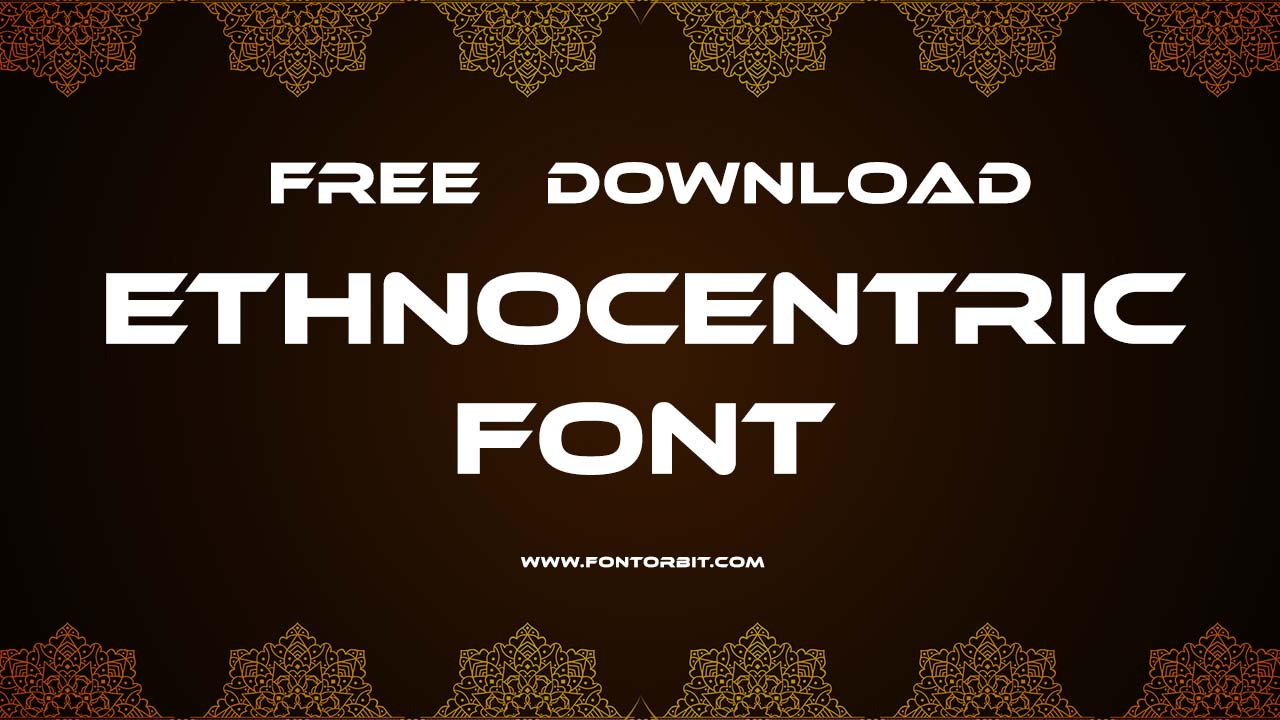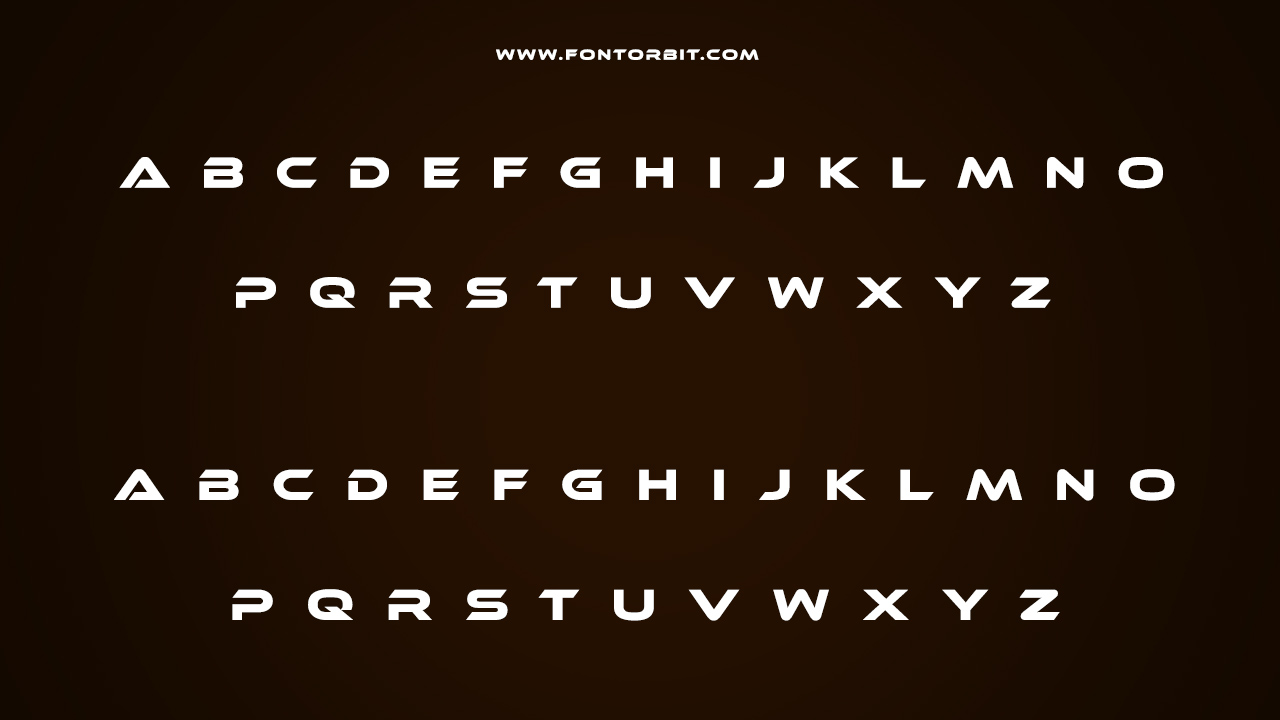
The Ethnocentric Font, designed by Ray Larabie and available from Typodermic, embodies a sleek and futuristic aesthetic. Inspired by modern technology and science fiction, this typeface features sharp diagonal cuts and dynamic pod forms that evoke a sense of rapid movement and technological advancement.
The Ethnocentric Font Family
- Ethnocentric Regular
- Ethnocentric Italic
- Ethnocentric UltraLight
- Ethnocentric UltraLight Italic
- Ethnocentric ExtraLight
- Ethnocentric ExtraLight Italic
- Ethnocentric Light
- Ethnocentric Light Italic
- Ethnocentric Bold
- Ethnocentric Bold Italic
- Tech and Sci-Fi Projects
- Logos:
- Magazines
- Web and UI Design
The Ethnocentric Font captures the essence of modern technology and sci-fi aesthetics with its dynamic and futuristic design. Its versatile weights and italics make it suitable for a variety of high-impact visual projects, from branding to digital interfaces.
1.What Is The Ethnocentric Font?
The Ethnocentric Font is a typeface designed by Ray Larabie, known for its futuristic and dynamic style, ideal for tech and sci-fi themed designs.
2.What Fonts Are Similar To Ethnocentric?
Similar fonts include Futurist, Techno Redux, and Cyberian Sans, which also offer a modern, tech-inspired look.
3.What Are The Key Features Of The Ethnocentric Font?
Ethnocentric features sharp diagonal cuts and dynamic pod forms that convey a sense of speed and technological innovation, making it perfect for futuristic and sci-fi themes.
4.How To Use The Ethnocentric Font In Branding?
Use Ethnocentric for creating strong and memorable brand identities with a contemporary, high-tech appearance. Its various weights and italics offer flexibility for different design needs.
5.What Are The International Language Support Options For The Ethnocentric Font?
The Ethnocentric Font supports most Latin-based European writing systems. For broader international use, additional typefaces with more extensive language support may be required.